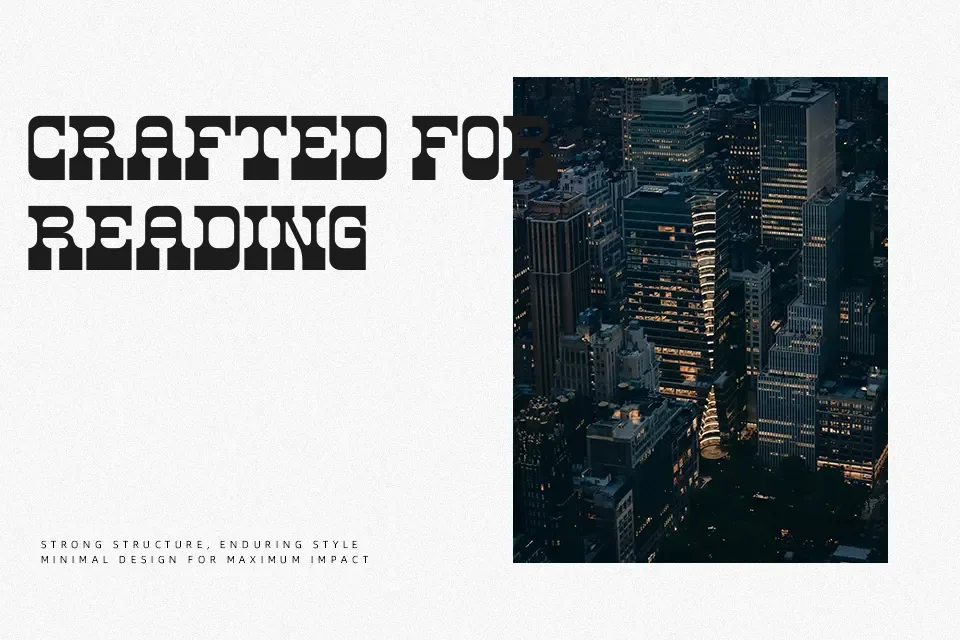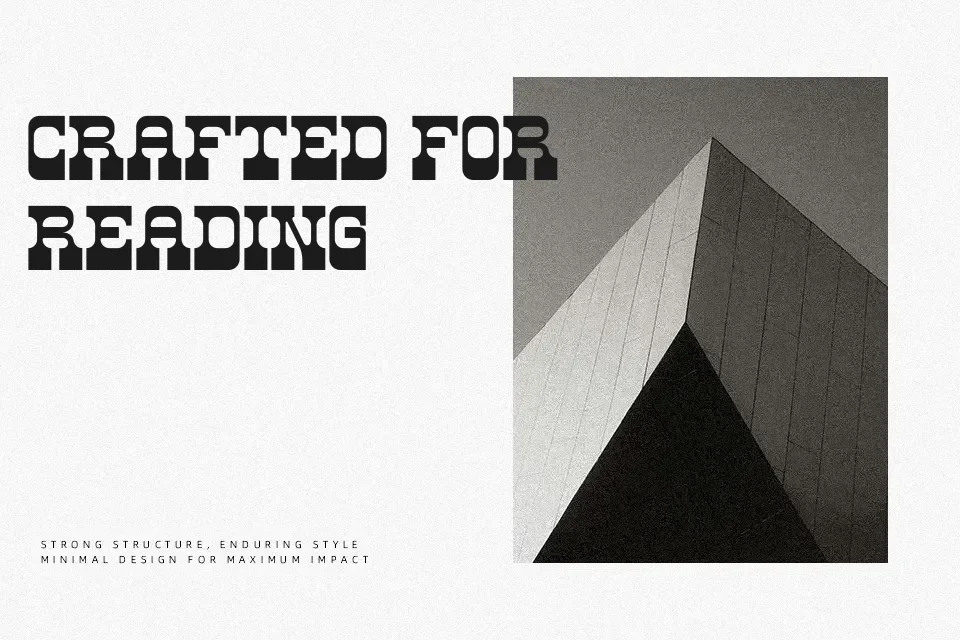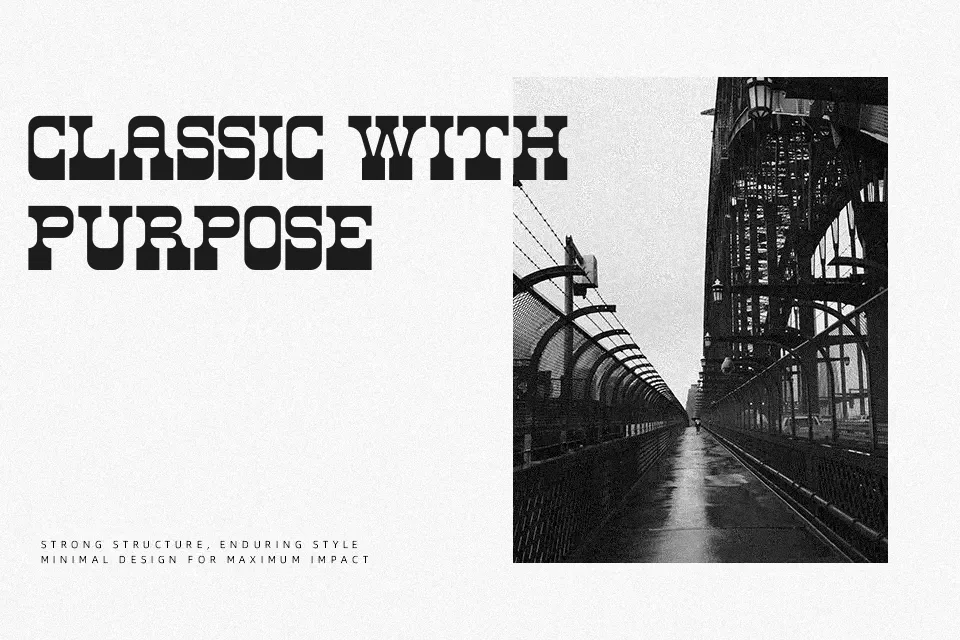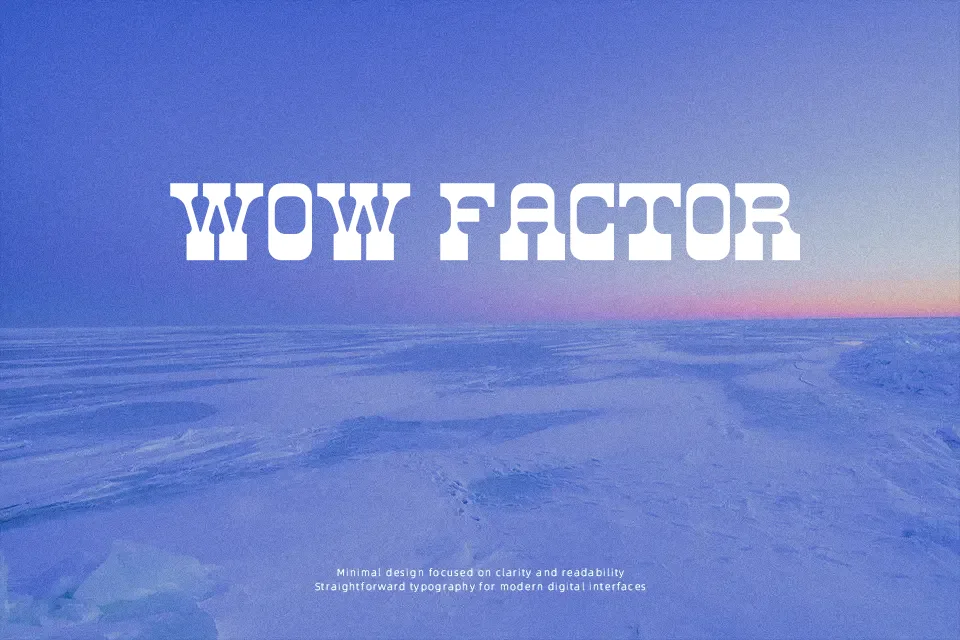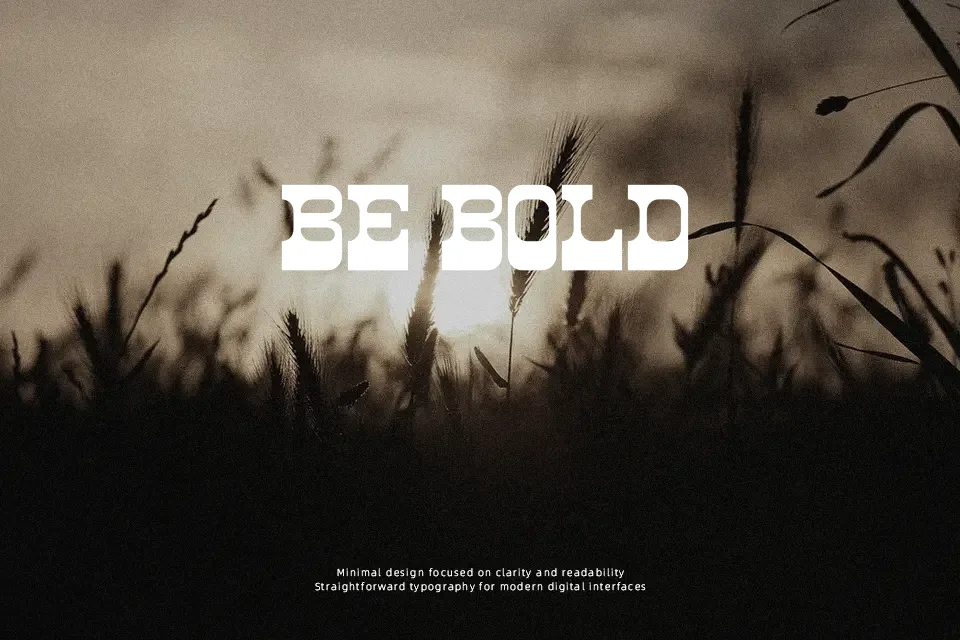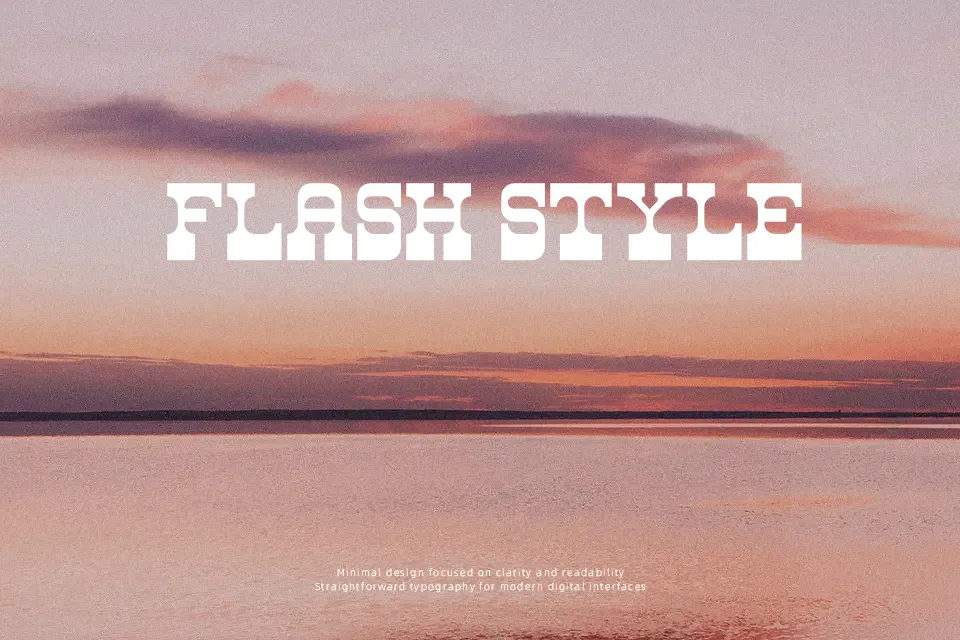
Big Bang Font
Big Bang leans into dramatic contrast — thick downstrokes paired with sharp, expressive terminals give it a commanding presence without crossing into illegibility. The Western-influenced decorative structure makes it a natural fit for event posters, social media headers, and brand moodboards where a single word needs to carry visual weight. It renders well at large display sizes but loses definition in smaller applications, making body text use entirely off the table. The demo version limits commercial deployment, so studios working on paid client work will need to budget for the full license. For personal projects and concept exploration, it delivers personality without much effort.
Best For:- Event poster headlines
– Social media title graphics
– Music or entertainment branding mockups
– Halloween or themed seasonal campaigns
Not Ideal For:- Body text or extended reading at any size
– Corporate or formal document design
– Small-scale print applications (business cards, footnotes)
Perfect for branding, halloween, and headline, with a bold and decorative style.